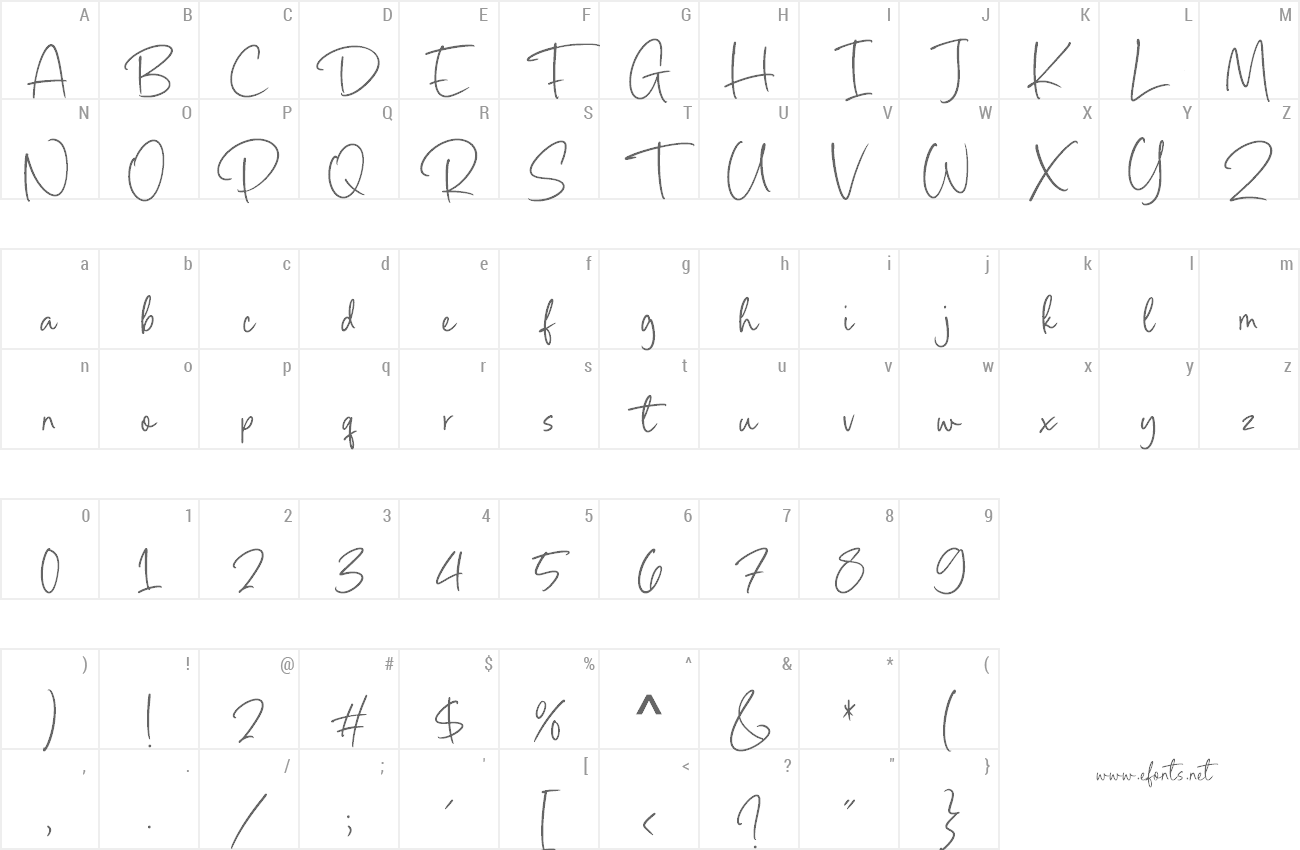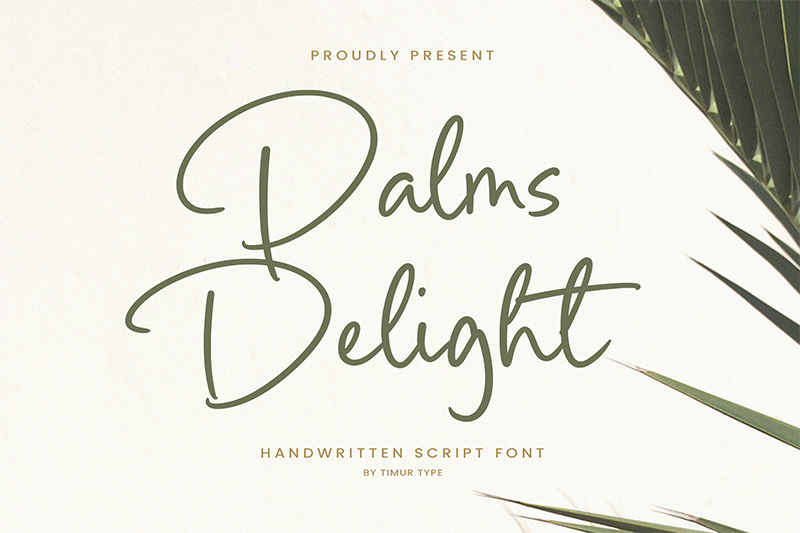
| Font name: | Palms Delight |
| Author: | Timur Type |
| Note by Timur Type | |
Introduced by Timurtype Studio! Palms Delight is a Handwritten Script Font This font is a joyful and playful choice for your design projects. With its whimsical and breezy letterforms, this font embodies the carefree spirit of tropical palm trees. The fluid strokes and organic curves give the Palms Delight font a natural and relaxed aesthetic, perfect for adding a laid-back and fun touch to your branding materials, posters, and social media graphics. Whether you're aiming for a beachy and tropical vibe or a casual and friendly look, the Palms Delight font offers versatility and style. Embrace the playful energy of the Palms Delight handwritten script font and infuse your designs with a sense of tropical delight. These fonts include: OTF TTF WOFF Palms Delight Font also supports multilingualism. Palms Delight Font features premium : -Full Set of standard alphabet and punctuation By installing or using this font, you are agree to the Product Usage Agreement: � This demo font is ONLY for PERSONAL USE. NO COMMERCIAL USE ALLOWED! � Here is the link to purchase full version and commercial license: https://timurtype.com/product/palms-delight/ � For Corporate use you have to purchase Corporate license timurtype.studio@gmail.com More... |